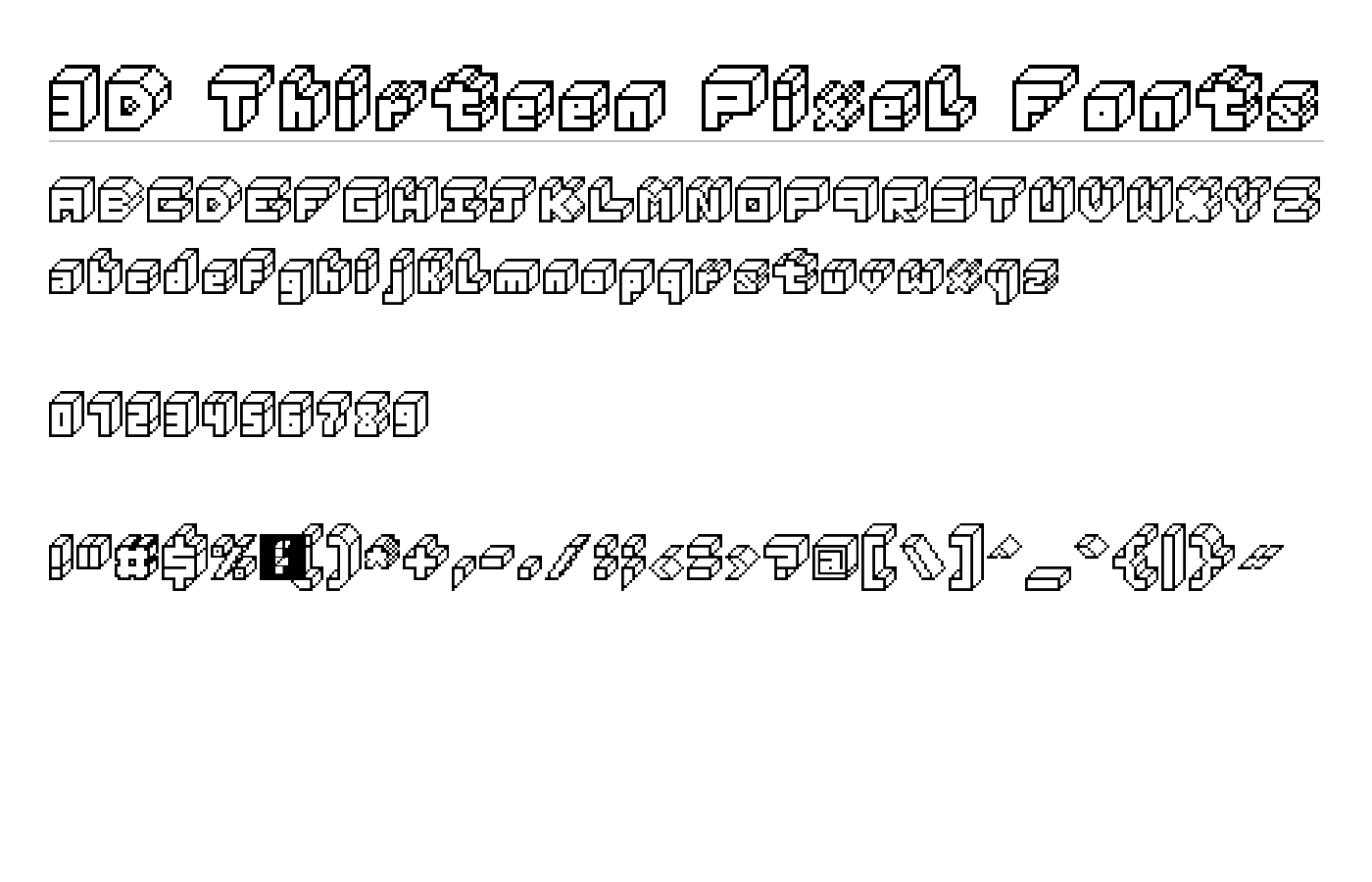
3D Thirteen Pixel Fonts is a bold, blocky pixel-style typeface with a distinctive 3D effect, featuring sharp, geometric edges and a retro digital aesthetic. Its compact width and uniform stroke weight create a playful yet solid appearance, making it ideal for video game graphics, tech-themed designs, or nostalgic digital art. This font works best in headlines and logos where its unique pixelated dimension can stand out and grab attention.